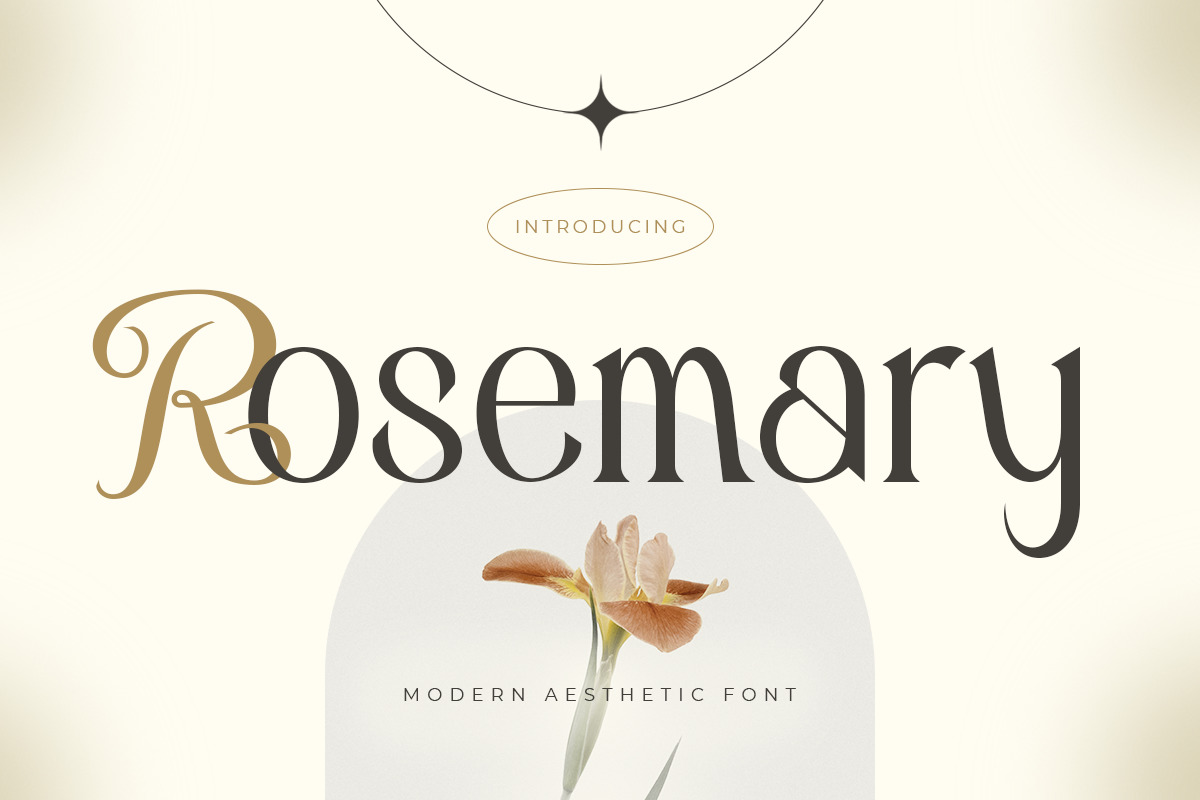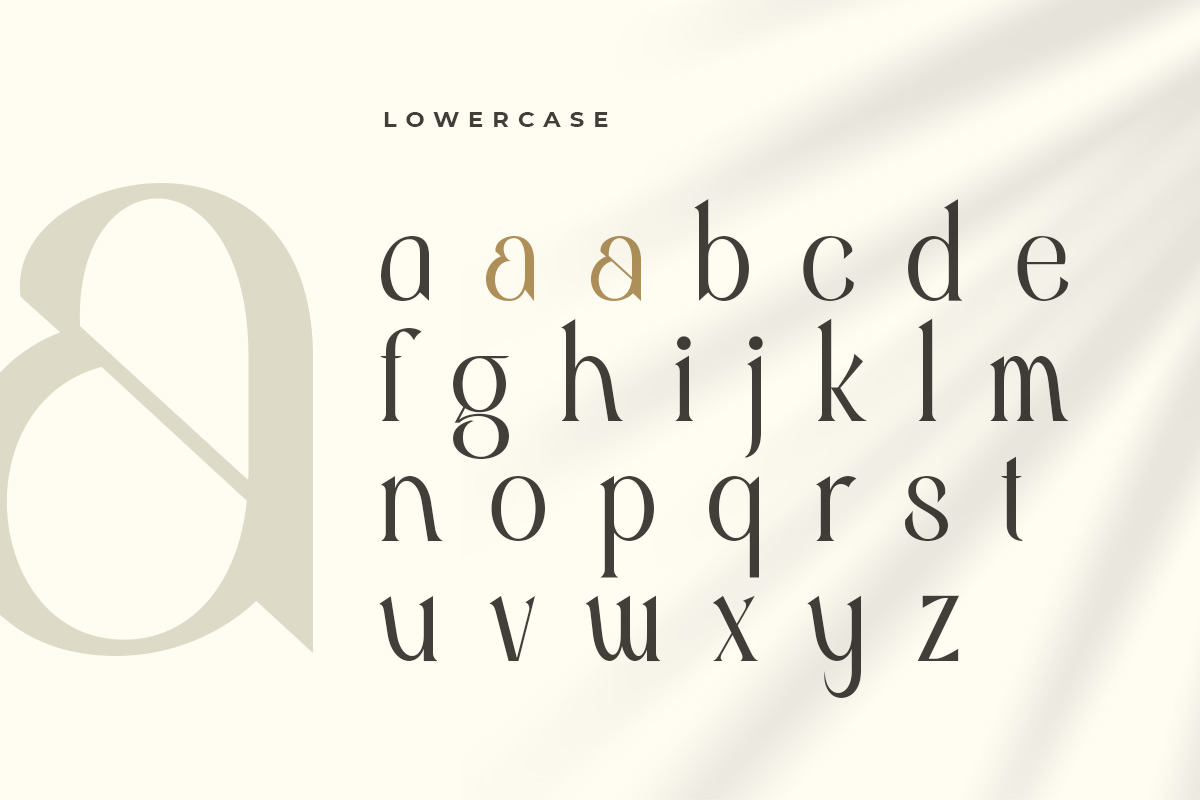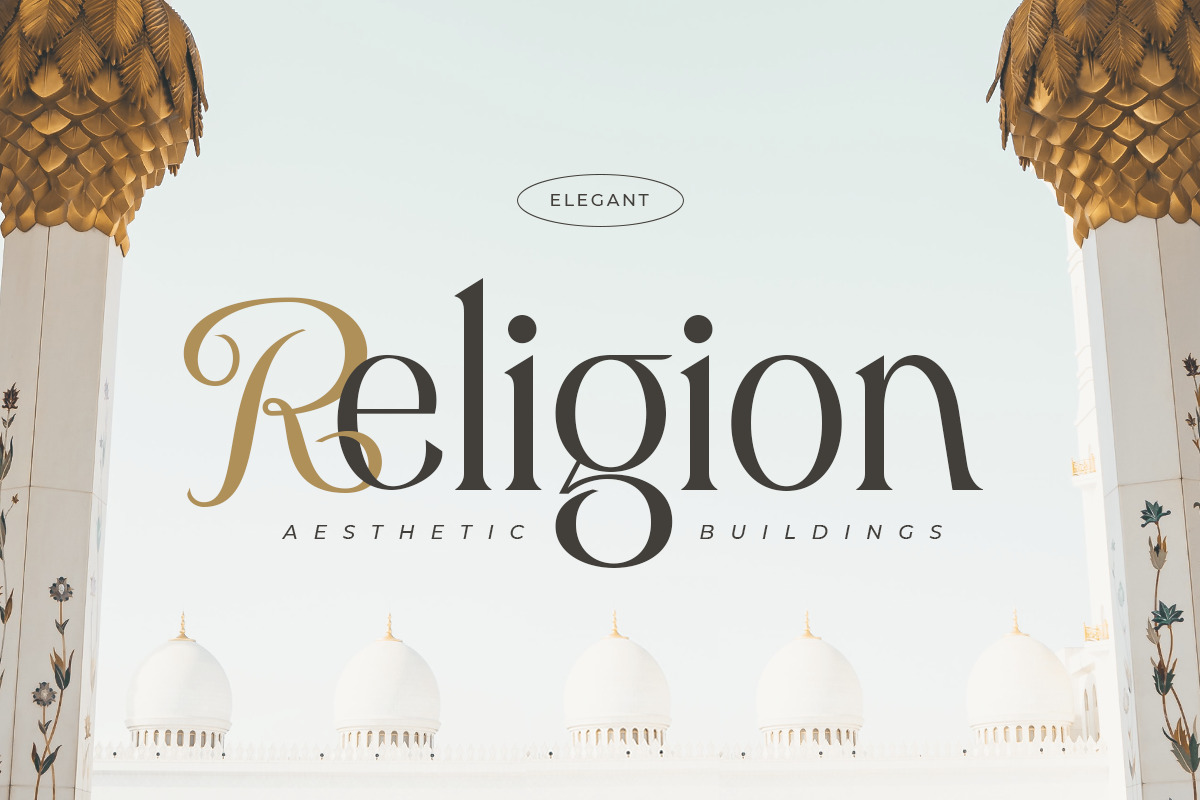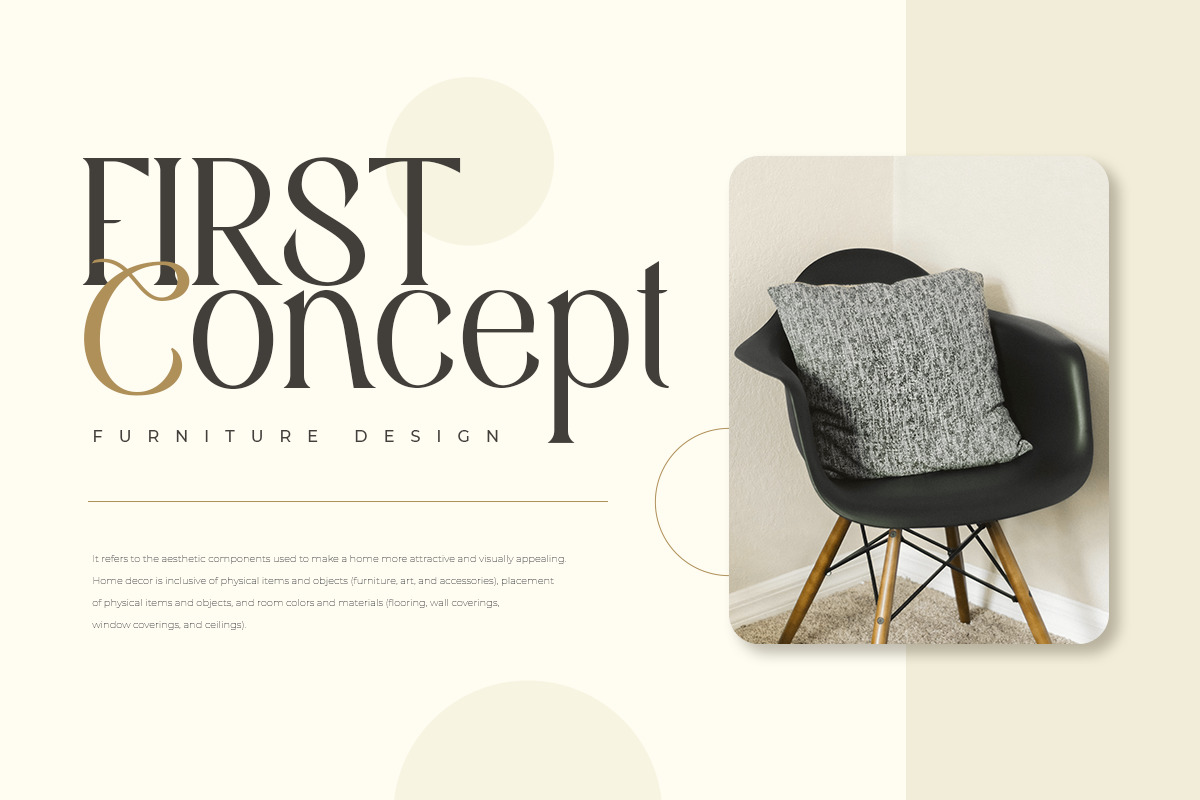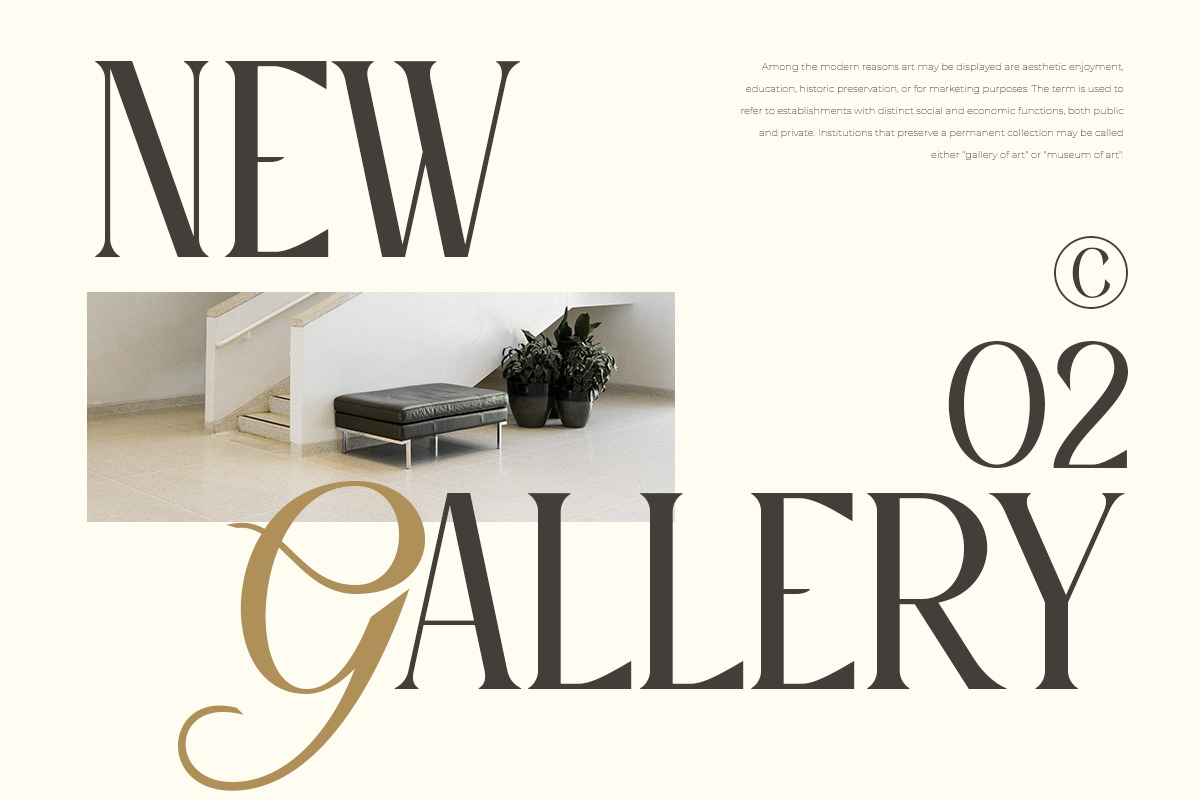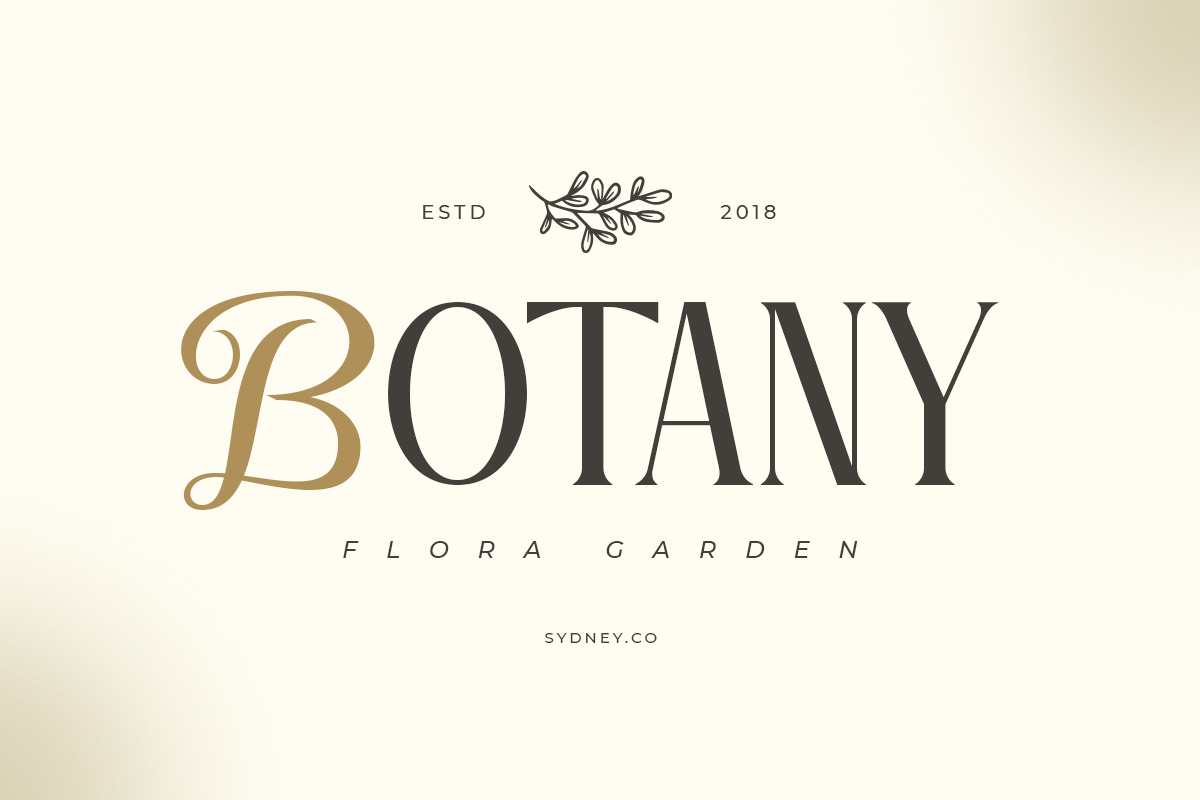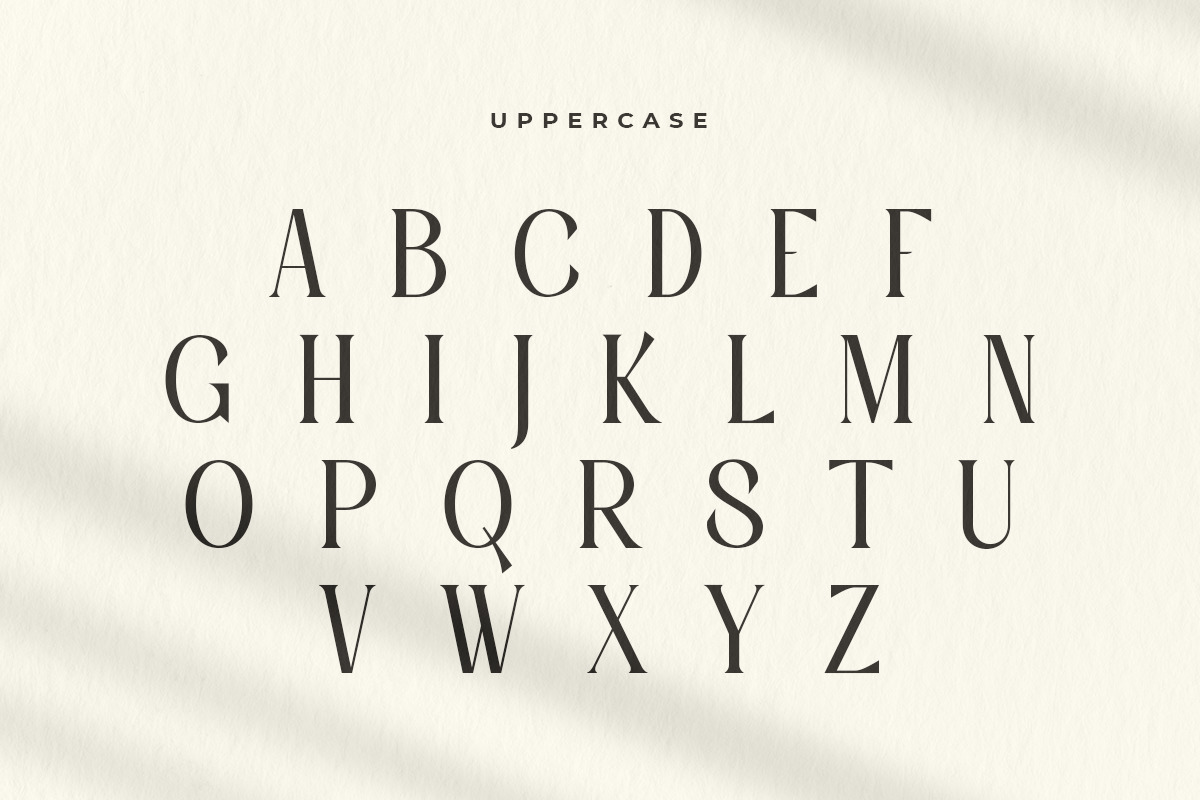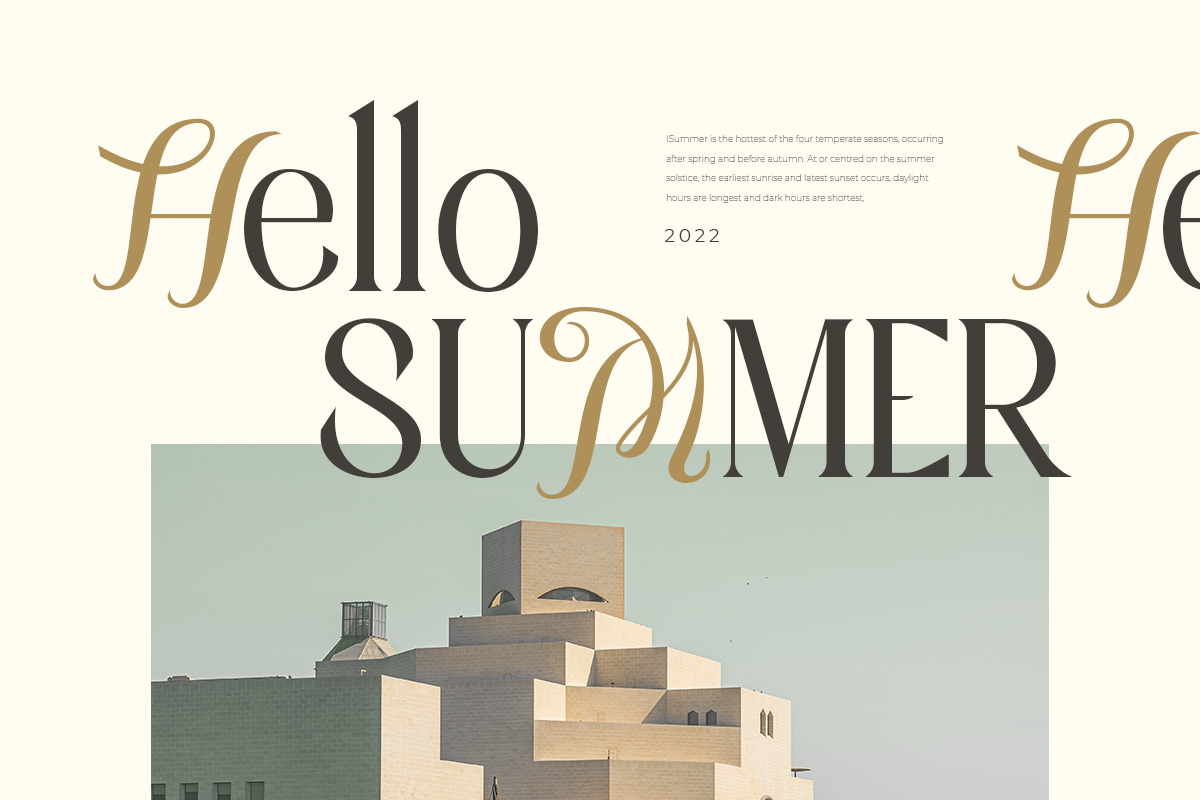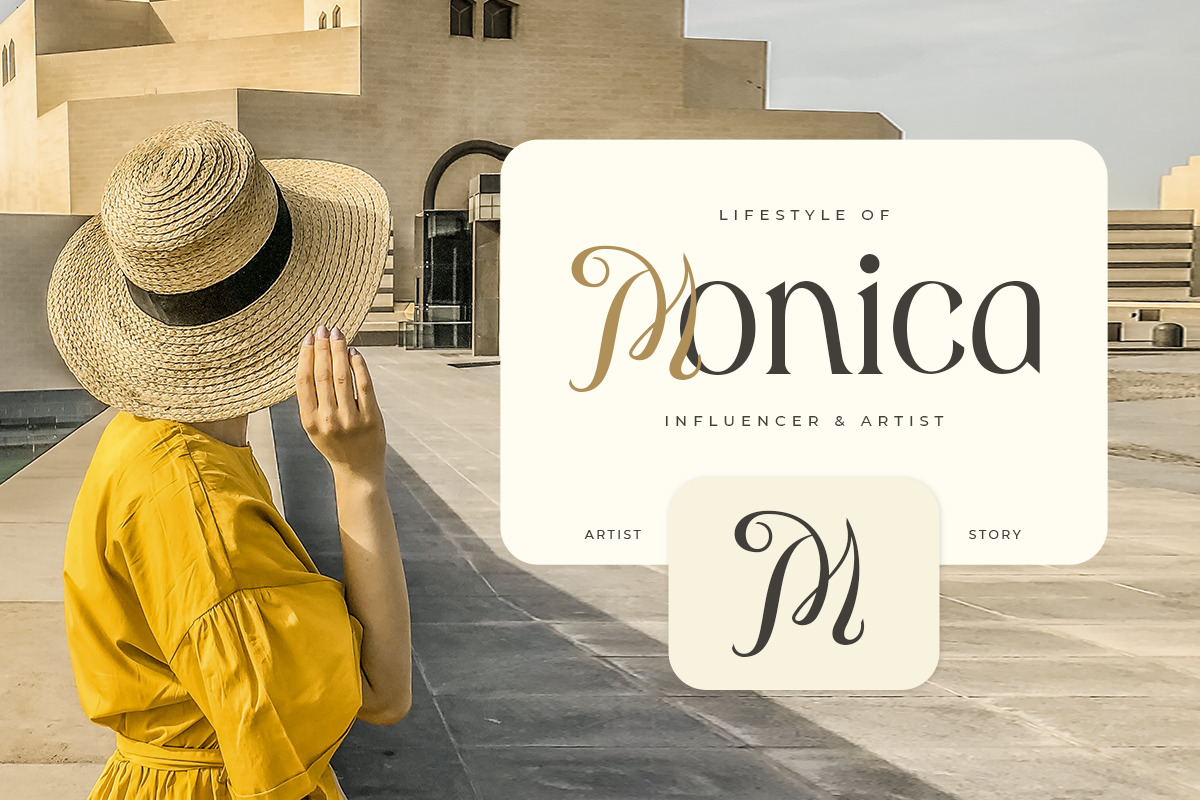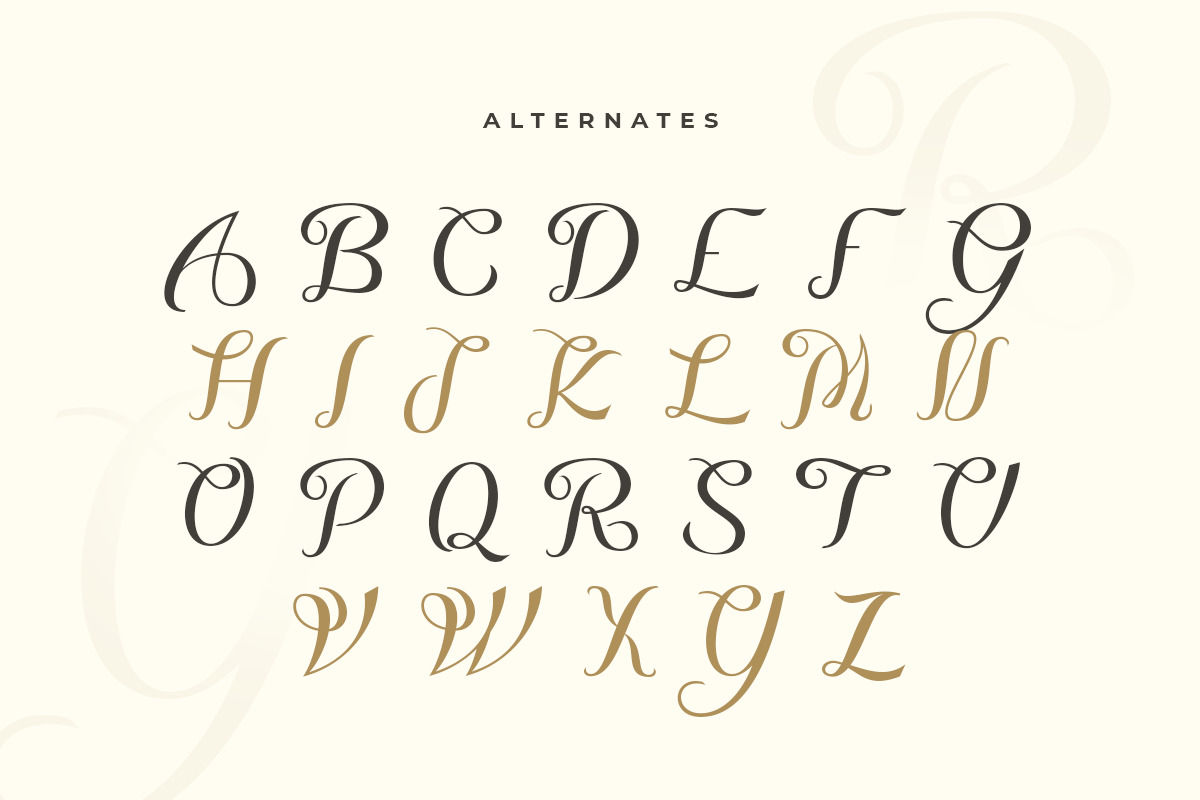
Rosemary - Modern Aesthetic Font
A Display font that we created special for elegant branding needs, with extra alternates in unique shape will be ready to add value of your brand. It so nice to leverage designer or product owner that need solutions to make their design look more aesthetic and modern. And specially for Rosemary font, We prepared any alternates characters to help you create unlimited variations for your creative needs.
Rosemary Display Aesthetic Moder font ready with:
- Ready with alternate characters
- Ready with Lowercase and Uppercase characters